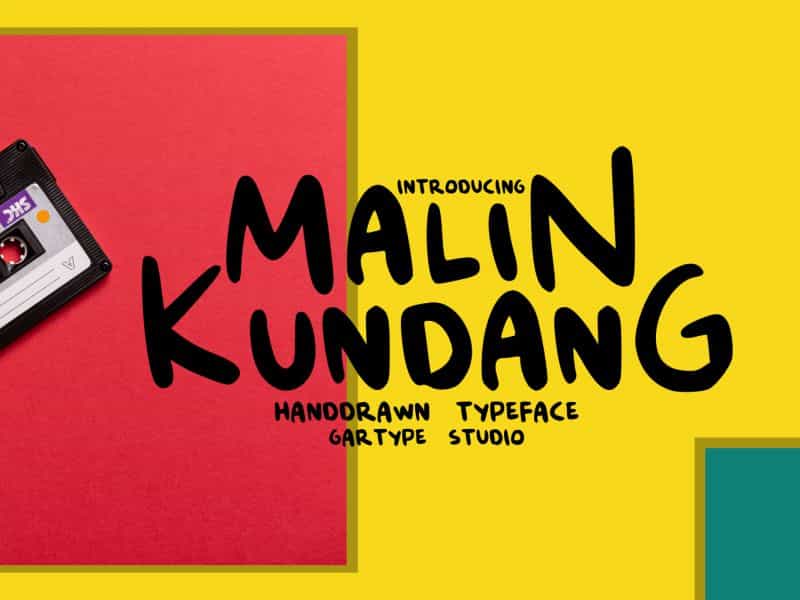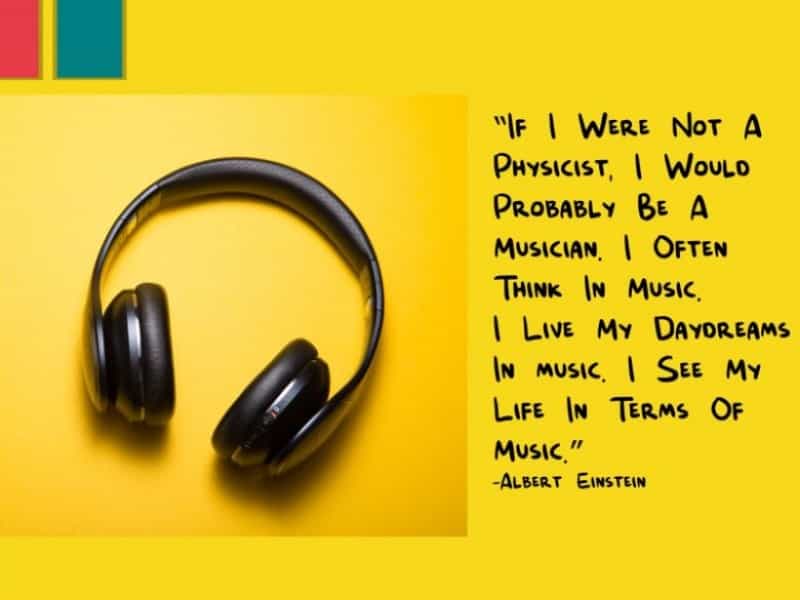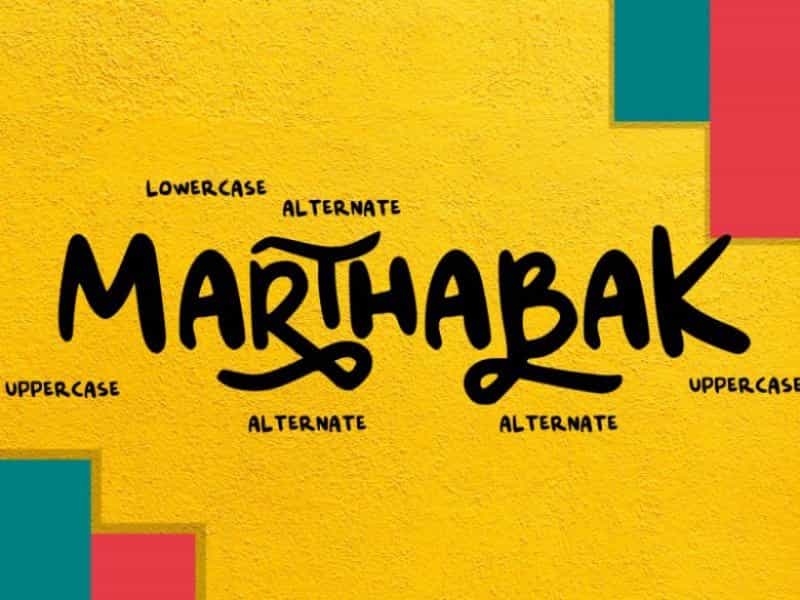
Malin Kundang Script Font
Hello buddy !In this case, we will present you the Malin Kundang fonts that are appropriate for numerous of your needs like book covers, titles, logos, letterheads, quotes posters and so on. Malin Kundang has many Alternates to make your design look cooler!